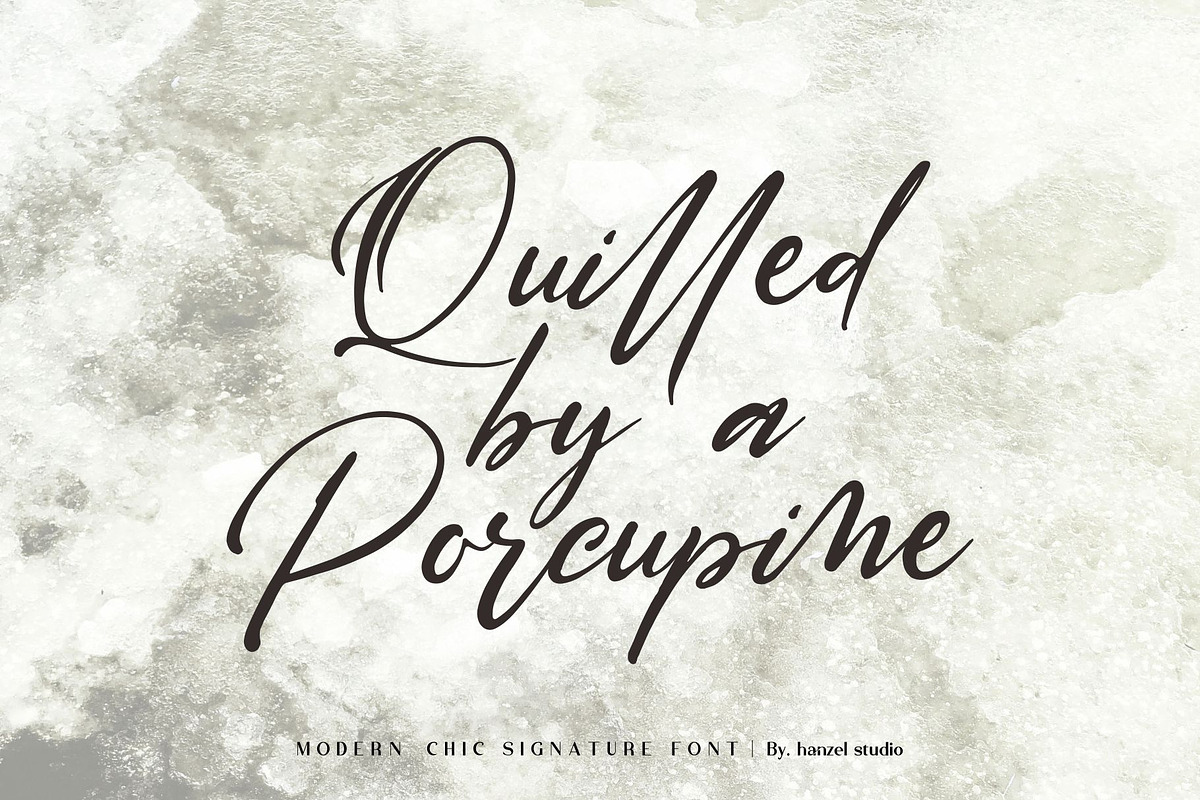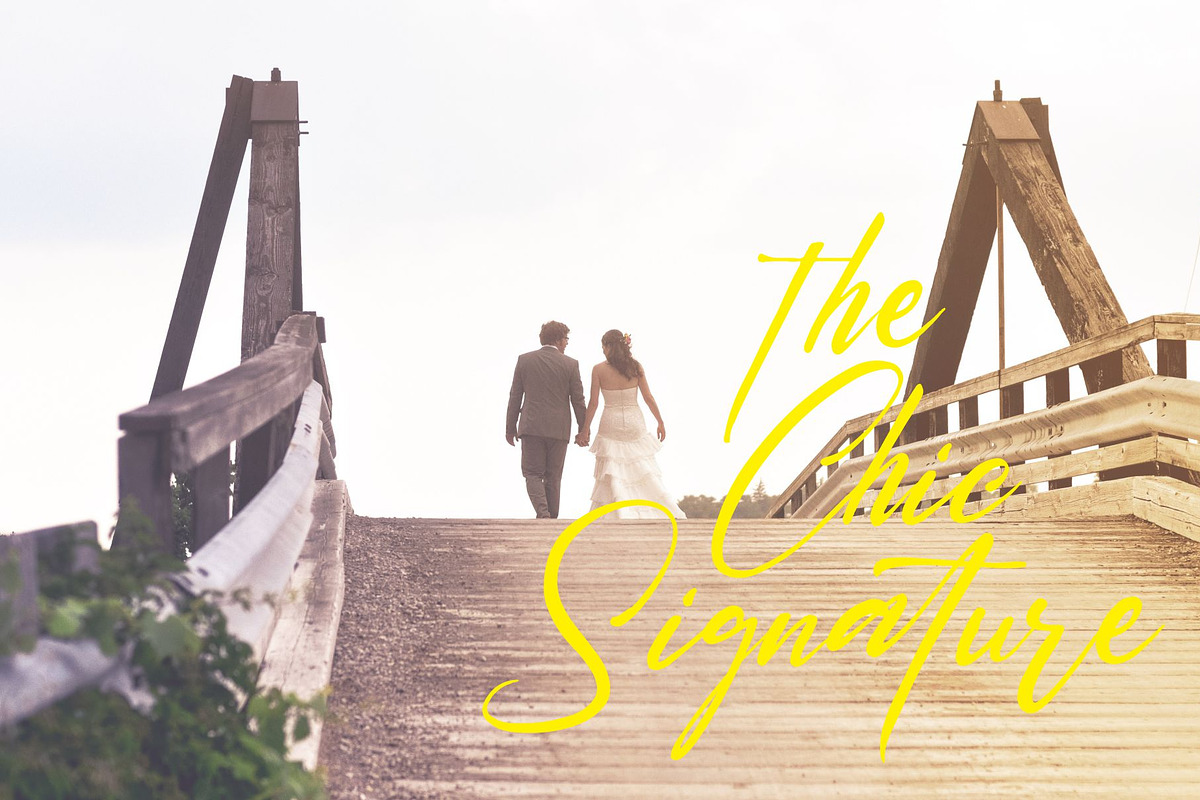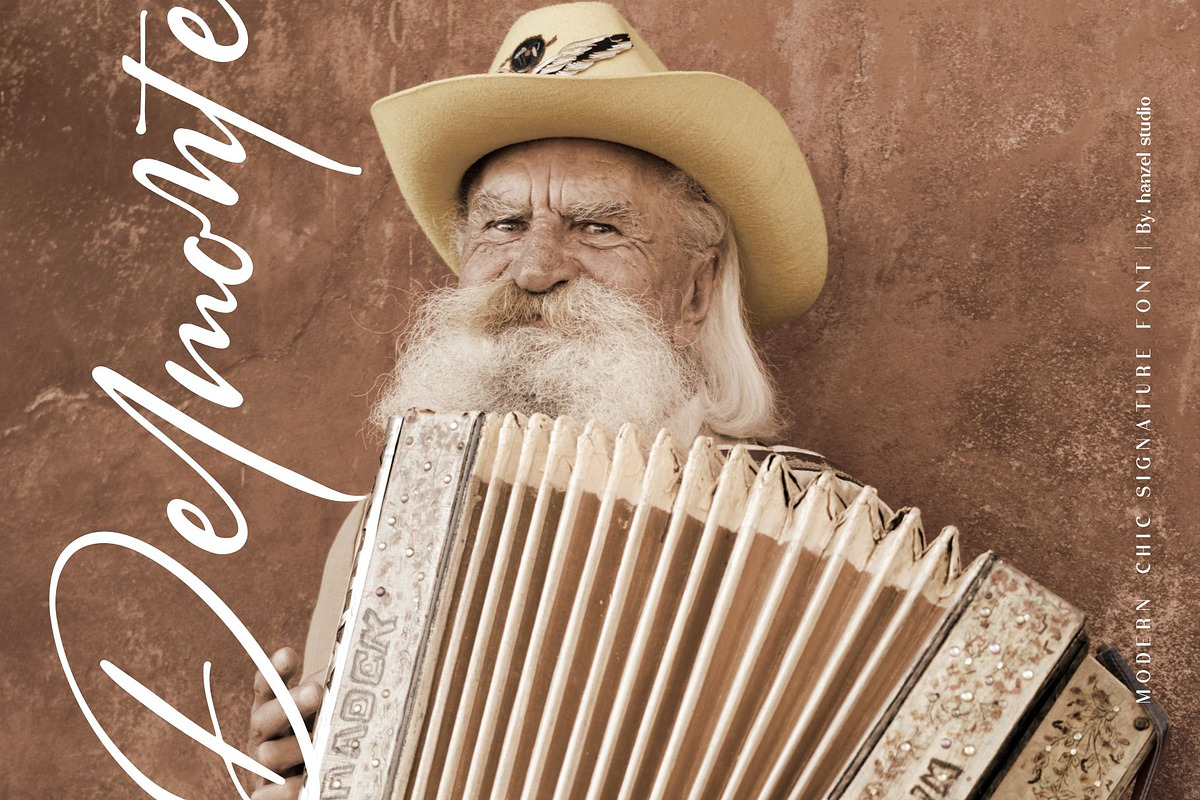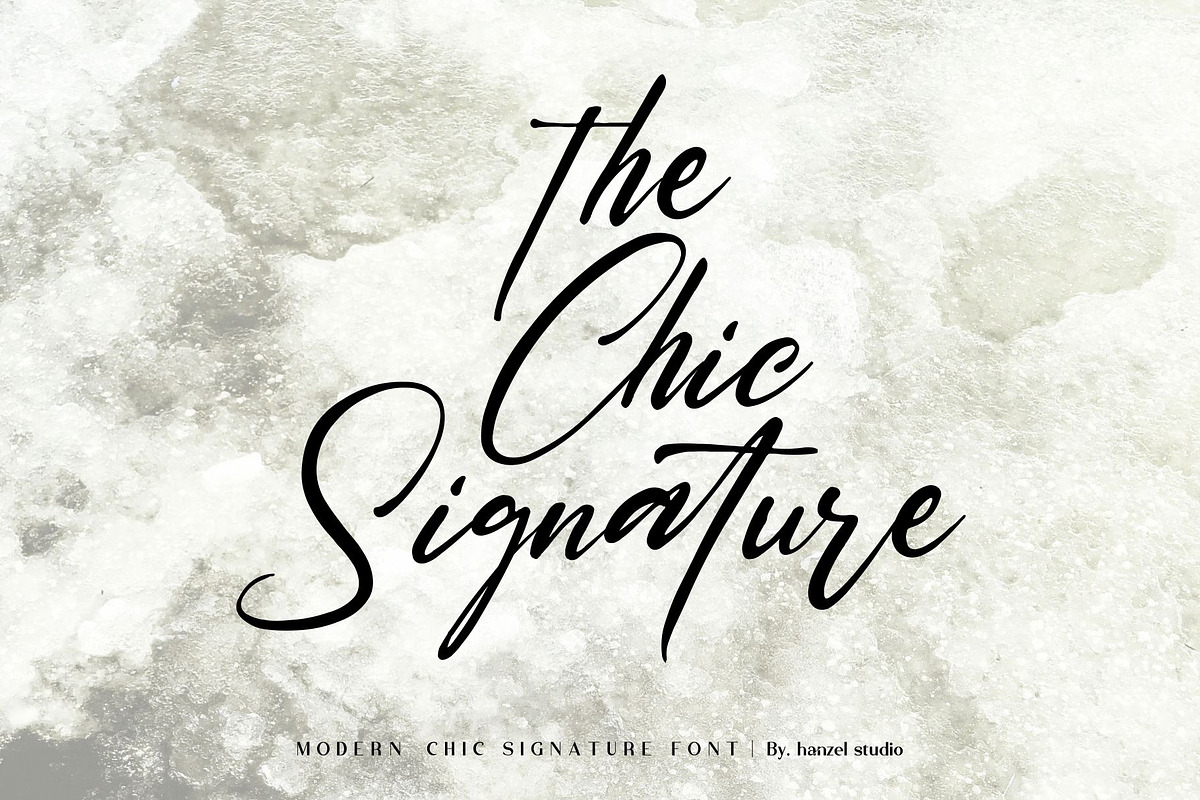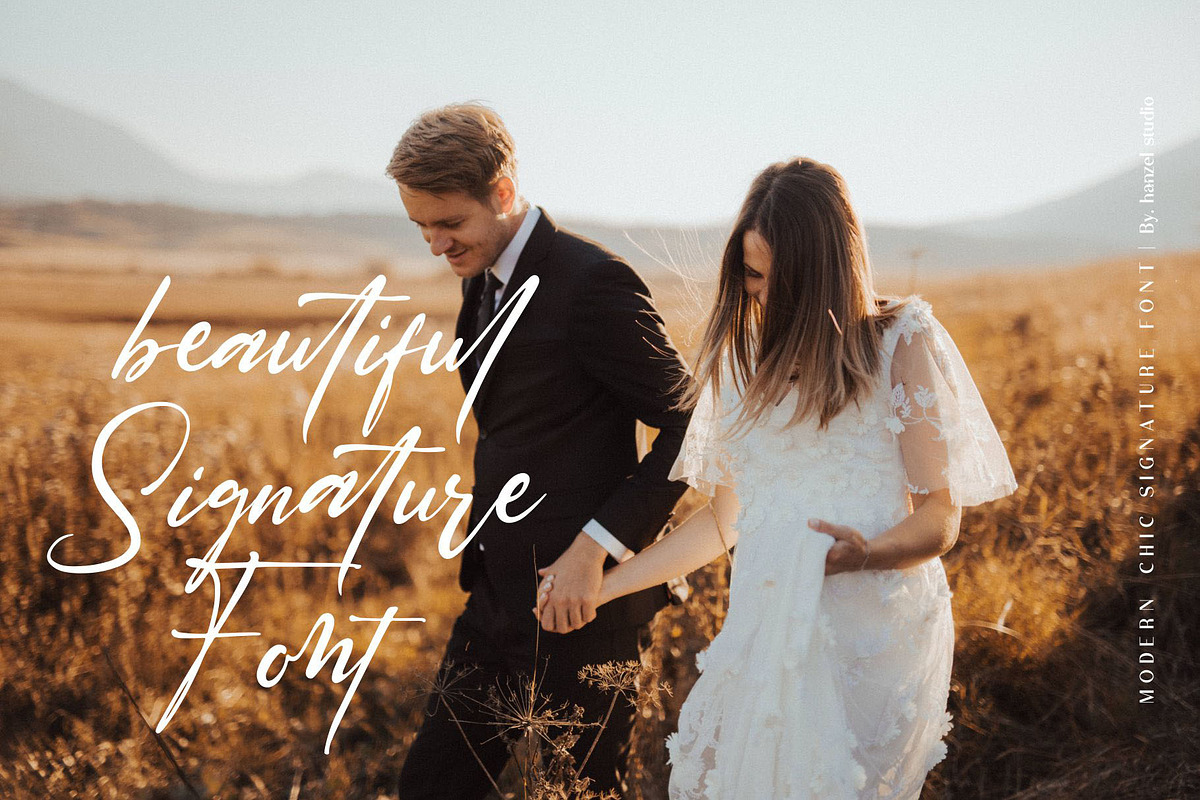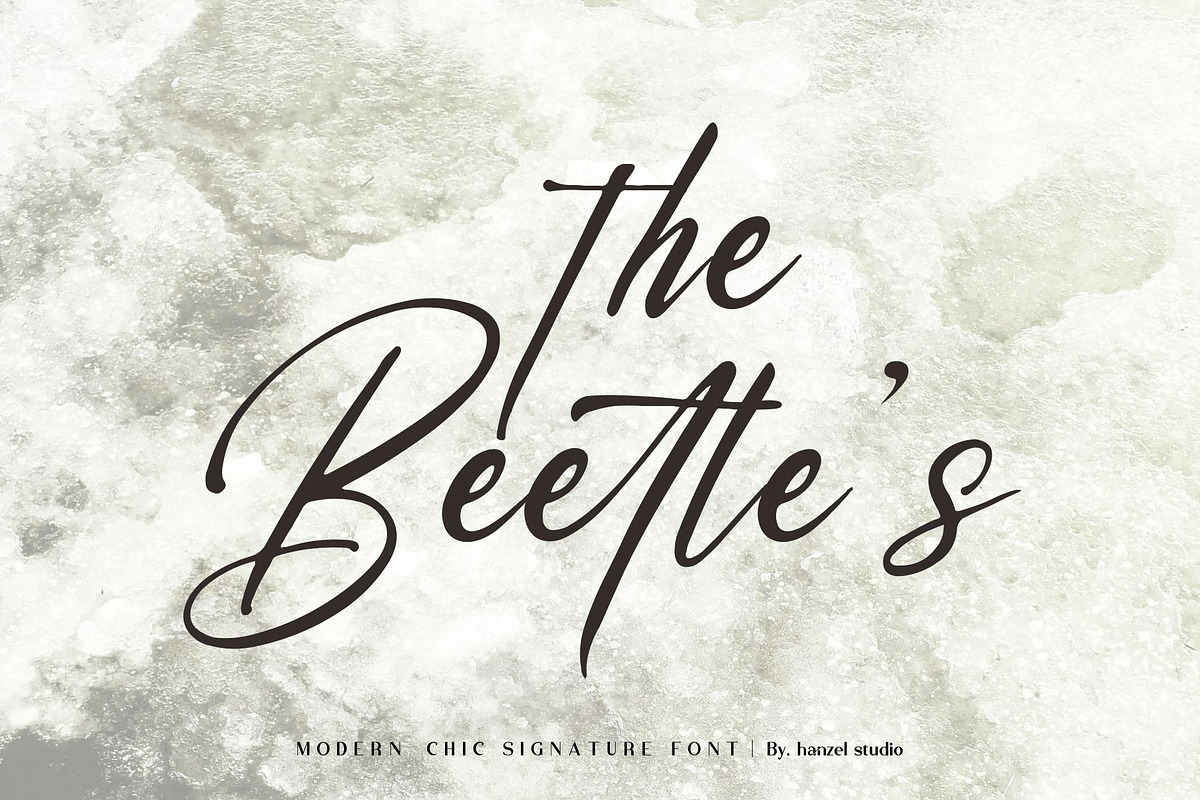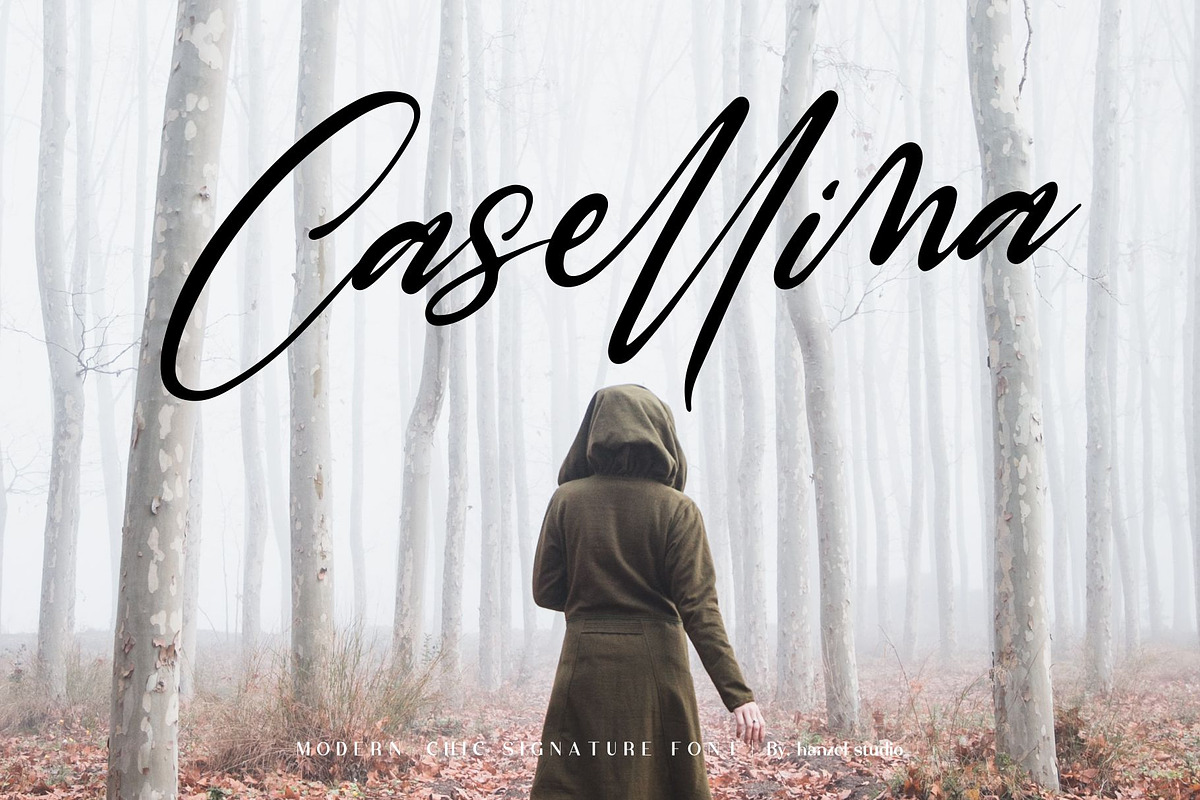
Saltacrus//Chic Signature Font
Saltacrus is a modern Chic Signature font with magical pressure. i hope this font is perfect for creating signature logos and watermarks for photography studio or wedding invitation, Lable, Logo, Magazine best for initial or branding logo signature.
Saltacrus includes a full set of beautifull hand letters, numerals, a large range of punctuation and ligatures. Giving realistic hand-lettered style. What do you get, darling?
- Saltacrus includes a full set of beautifull hand letters, numerals, a large range of punctuation and ligatures.